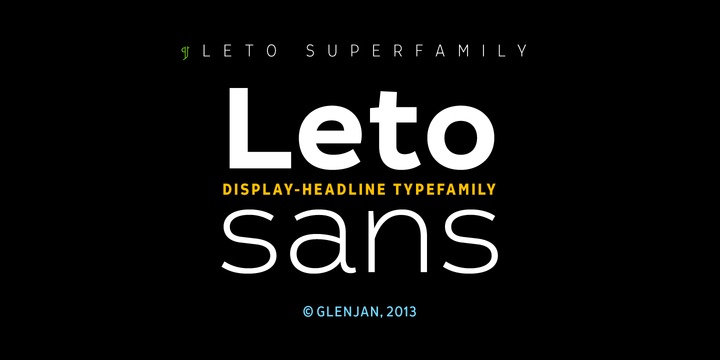
Leto Sans Font
Leto Sans Font is perfect for tech startup branding, minimalist web design, modern app interfaces, clean corporate identities, digital marketing materials, contemporary signage systems, sleek product packaging, progressive magazine layouts, user interface design, and sophisticated presentation templates.
What makes Leto Sans Font so exciting is its remarkable ability to embody pure minimalist elegance while delivering exceptional functionality across all digital and print applications. This cutting-edge sans serif typeface represents the pinnacle of contemporary typography design, featuring clean, geometric letterforms that communicate clarity, innovation, and forward-thinking professionalism without unnecessary ornamentation. The font's streamlined design elements perfectly capture the essence of modern digital culture and technological advancement, making it an essential choice for brands and projects that prioritize user experience, accessibility, and contemporary aesthetic appeal.
Leto Sans Font comes in multiple font families including Regular, Bold, Light, Italic, Bold Italic, Thin, Medium, and Ultra Light variations. Each family member maintains the core minimalist characteristics while offering different weight levels and stylistic approaches to suit various modern design requirements.
The geometric precision in Leto Sans Font makes it particularly suitable for digital-first companies and tech-savvy organizations where clean communication is paramount for user engagement. Its optimized letterforms maintain perfect readability across all screen sizes and resolutions, while preserving the contemporary elegance that appeals to modern consumers who expect seamless digital experiences.
Digital design professionals appreciate how Leto Sans Font transforms ordinary text into sophisticated expressions of modern functionality. The typeface's comprehensive character set includes extensive international language support and advanced OpenType features that enhance the overall contemporary atmosphere of any digital or print project.
For creative professionals serving technology companies, startups, and modern brands, Leto Sans Font serves as the perfect foundation for establishing memorable visual identities that capture the essential qualities of clarity, innovation, and user-centered design that define successful contemporary digital experiences.